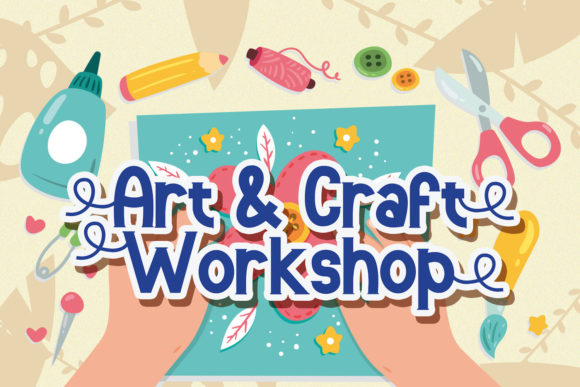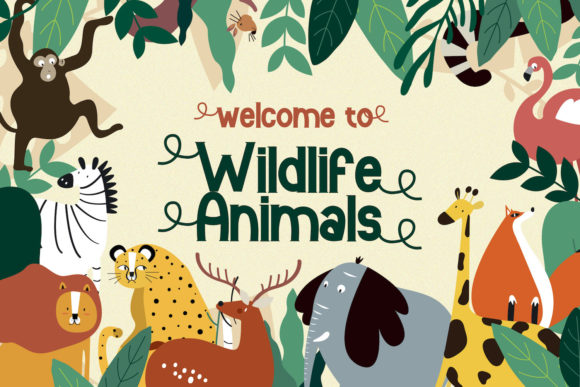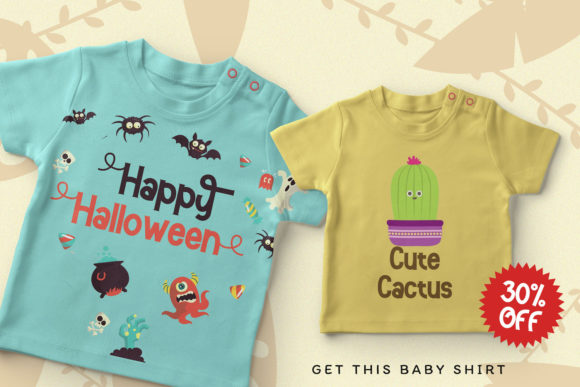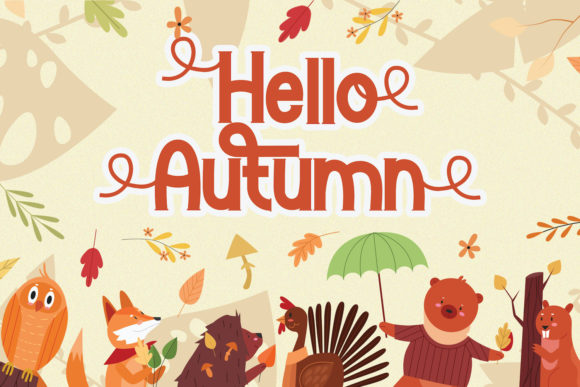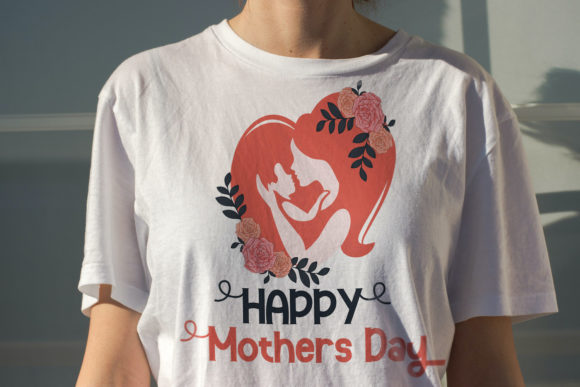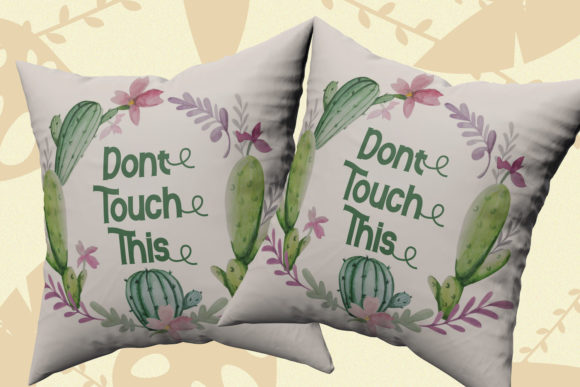
Baby Angel Font: The Sweet and Friendly Display Font for Your Creative Projects
Are you a designer or crafter looking for a font that can add a touch of sweetness and friendliness to your creative projects? Look no further than the Baby Angel Font! This beautiful display font is incredibly versatile and can elevate a wide range of designs to new heights. In this article, we’ll take a closer look at the Baby Angel Font, its features, and how you can use it to bring your creative ideas to life.
What is Baby Angel Font?
Baby Angel Font is a sweet and friendly display font that is perfect for a variety of creative projects. Its unique and elegant design makes it stand out from other fonts, and its versatility ensures that it can be used in a wide range of contexts. Whether you’re designing a logo, creating a social media graphic, or crafting a handmade card, Baby Angel Font is sure to impress.
Features of Baby Angel Font
So, what makes Baby Angel Font so special? Here are just a few of its key features:
- Sweet and Friendly Design: Baby Angel Font has a sweet and friendly design that is sure to capture the hearts of your audience. Its elegant and curved lines make it perfect for creating beautiful and eye-catching designs.
- Incredibly Versatile: This font is incredibly versatile and can be used in a wide range of creative projects, from logos and branding to social media graphics and handmade crafts.
- Elegant and Sophisticated: Baby Angel Font has an elegant and sophisticated design that is sure to elevate your designs to new heights.
- Easy to Read: Despite its elegant design, Baby Angel Font is easy to read, making it perfect for use in a variety of contexts.
How to Use Baby Angel Font
So, how can you use Baby Angel Font in your creative projects? Here are just a few ideas to get you started:
- Logos and Branding: Use Baby Angel Font to create a beautiful and memorable logo for your business or brand.
- Social Media Graphics: Add a touch of sweetness and friendliness to your social media graphics with Baby Angel Font.
- Handmade Crafts: Use Baby Angel Font to add a personal touch to your handmade crafts, such as cards, gift tags, and scrapbook pages.
- Invitations and Announcements: Create beautiful and elegant invitations and announcements with Baby Angel Font.
Why Choose Baby Angel Font?
So, why should you choose Baby Angel Font for your creative projects? Here are just a few reasons:
- Unique and Elegant Design: Baby Angel Font has a unique and elegant design that is sure to make your designs stand out.
- Incredibly Versatile: This font is incredibly versatile and can be used in a wide range of creative projects.